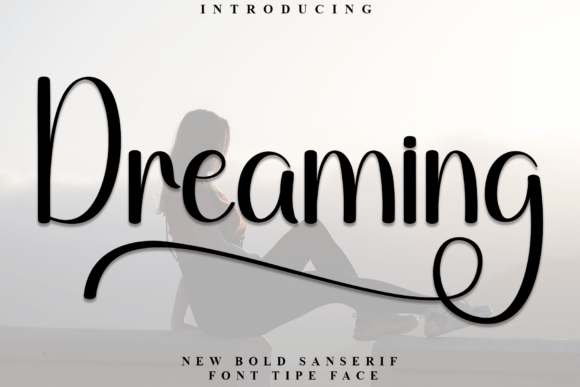
Have you ever stared at a blank canvas, wondering where to start on your next creative project? The blank page can be intimidating, but the right font can be the spark that sets your imagination ablaze. That’s where the Dreaming Font comes in – a charming, hand-drawn font that exudes warmth and friendliness.
With its round, playful strokes, the Dreaming Font is perfect for personal projects, invitations, and social media graphics. Its unique touch adds a fun and approachable feel that’s hard to find in other fonts. Whether you’re a seasoned designer or a creative newbie, the Dreaming Font is a valuable addition to your toolkit – making it easy to bring your ideas to life in any application engine, from Adobe Photoshop to Canva and beyond.
Dreaming Font Key Features
- Font Family: A unique, hand-drawn font with a dreamy and ethereal feel.
- Character Set: Includes a wide range of characters, including uppercase and lowercase letters, numbers, punctuation, and special symbols.
- Unique Characteristics: Features a flowing, cursive script with subtle irregularities and variations in letterform, giving it a distinctive, hand-written feel.
Dreaming Font Review
As a designer, I was excited to dive into the Dreaming Font and see what it had to offer. Here’s my honest review:
- The font’s whimsical feel is perfect for creative projects, like children’s books or art portfolios.
- The letterforms are elegant and flowing, making it a great choice for typography-heavy designs.
- The font comes in a range of weights and styles, giving designers plenty of options for customization.
- The font’s connections between characters can be a bit wobbly at times, which may cause issues with text alignment.
- The font is not ideal for use in small text sizes, as the letterforms can become difficult to read.
- The font may not be the best choice for formal or corporate designs, as it’s a bit too playful.
Overall, I think the Dreaming Font is a great addition to any designer’s toolkit. While it may have some limitations, its unique charm and versatility make it a great choice for creative projects. With a bit of careful planning and consideration, I think this font can add a touch of magic to any design.
Getting the Most Out of the Dreaming Font
To get the most out of the Dreaming Font, consider the following tips:
- Pair the Dreaming Font with other creative fonts or graphics to create a unique look.
- Use the Dreaming Font to add a touch of whimsy or elegance to your designs.
The Dreaming Font is ideal for:
- Alternatives to Dreaming Font
Pacifico is a beautiful, elegant script font perfect for creating a luxurious and sophisticated look. It’s ideal for use in branding, packaging, and advertising materials where a high-end feel is desired.
Compared to Dreaming Font, Pacifico has a more refined and polished appearance, making it suitable for a wider range of applications.
Great Vibes is a stylish, cursive font that’s perfect for creating a fun and energetic vibe. It’s ideal for use in digital products, social media graphics, and other applications where a playful feel is desired.
Unlike Dreaming Font, Great Vibes has a more dynamic and expressive quality, making it suitable for use in a variety of contexts.
Carolyna Pro is a modern, elegant script font that’s perfect for creating a sophisticated and luxurious look. It’s ideal for use in branding, packaging, and advertising materials where a high-end feel is desired.